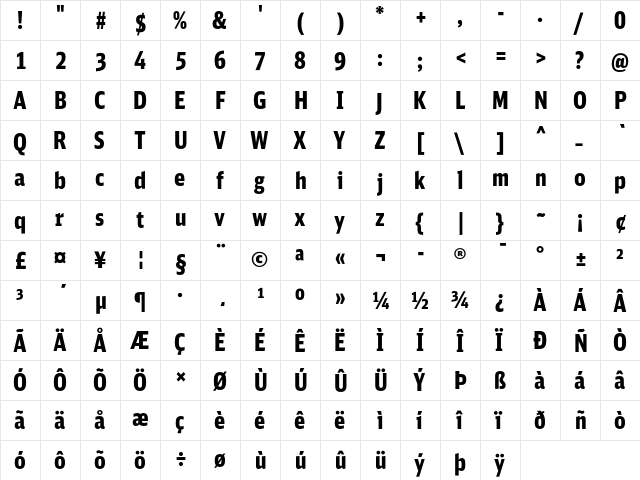
DB Sans Comp Black
Design Context for DB Sans Comp Typeface
DB Sans Comp is a composed and adaptable typeface that performs quietly and consistently across a wide range of design contexts.
Pro Tip: Use DB Sans Comp in both headline and body roles to test its range before committing to a single application.